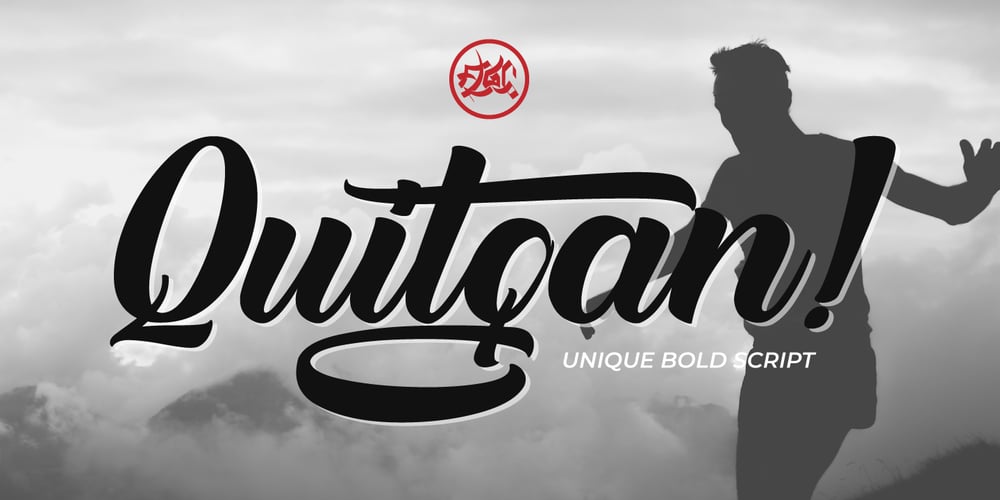
Quitgan Script Font Family was designed by Vava Aryanto and published by FallenGraphic. Quitgan Script contains 1 styles and family package options. Introducing Quitgan, an amazing handwritten font . This font will make your design more beautiful and powerful. Quitgan is suitable for any design like branding, quotes and much more. I hope you enjoy it. Quitgan is multi-lingual, PUA encoded and contains Numerals and Punctuations (OpenType Standard) and many alternates. Thanks for visiting and downloading my font.